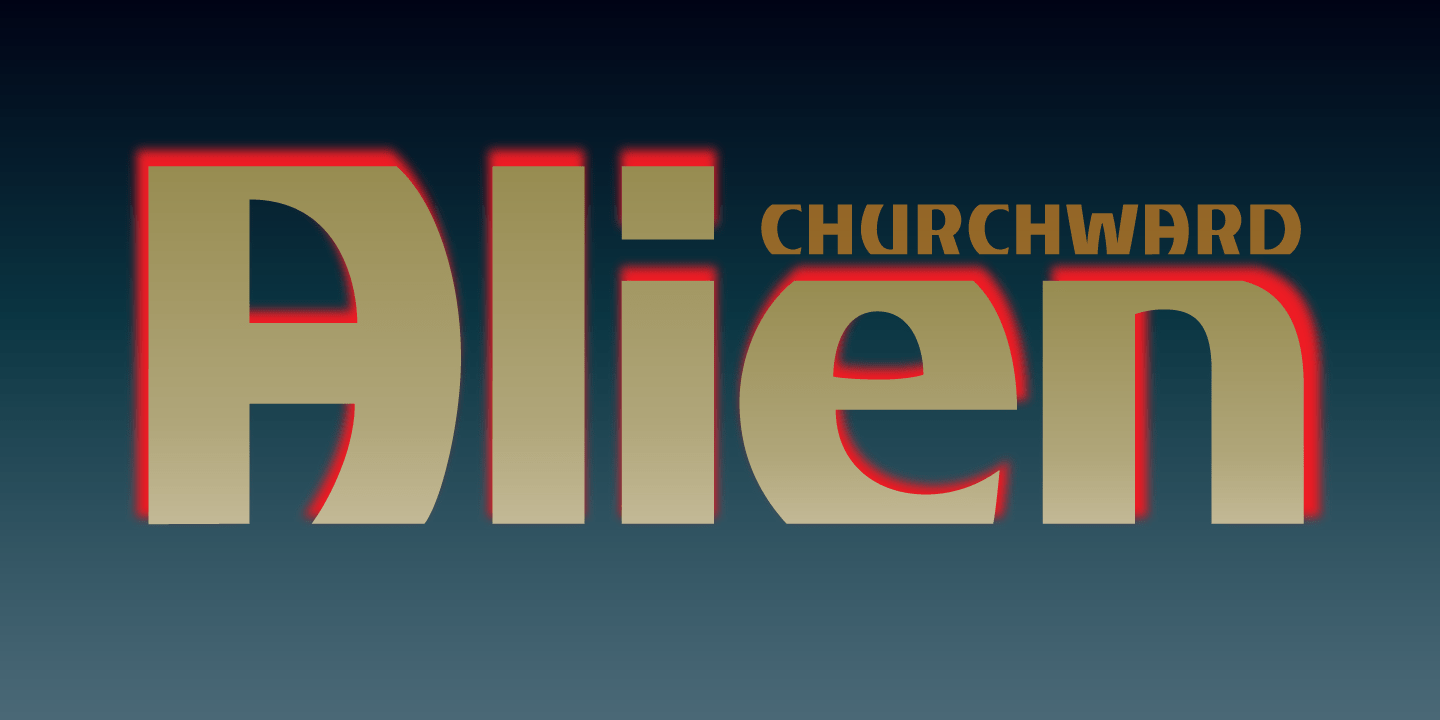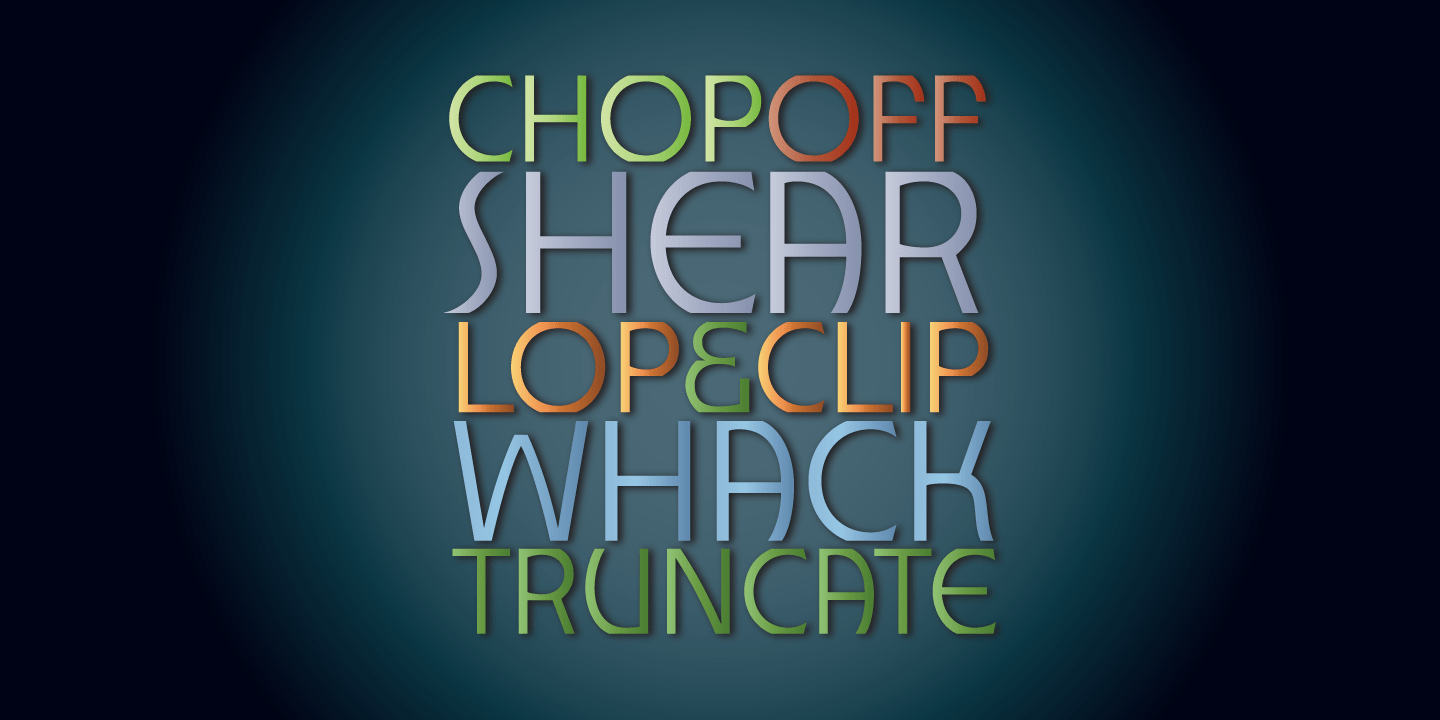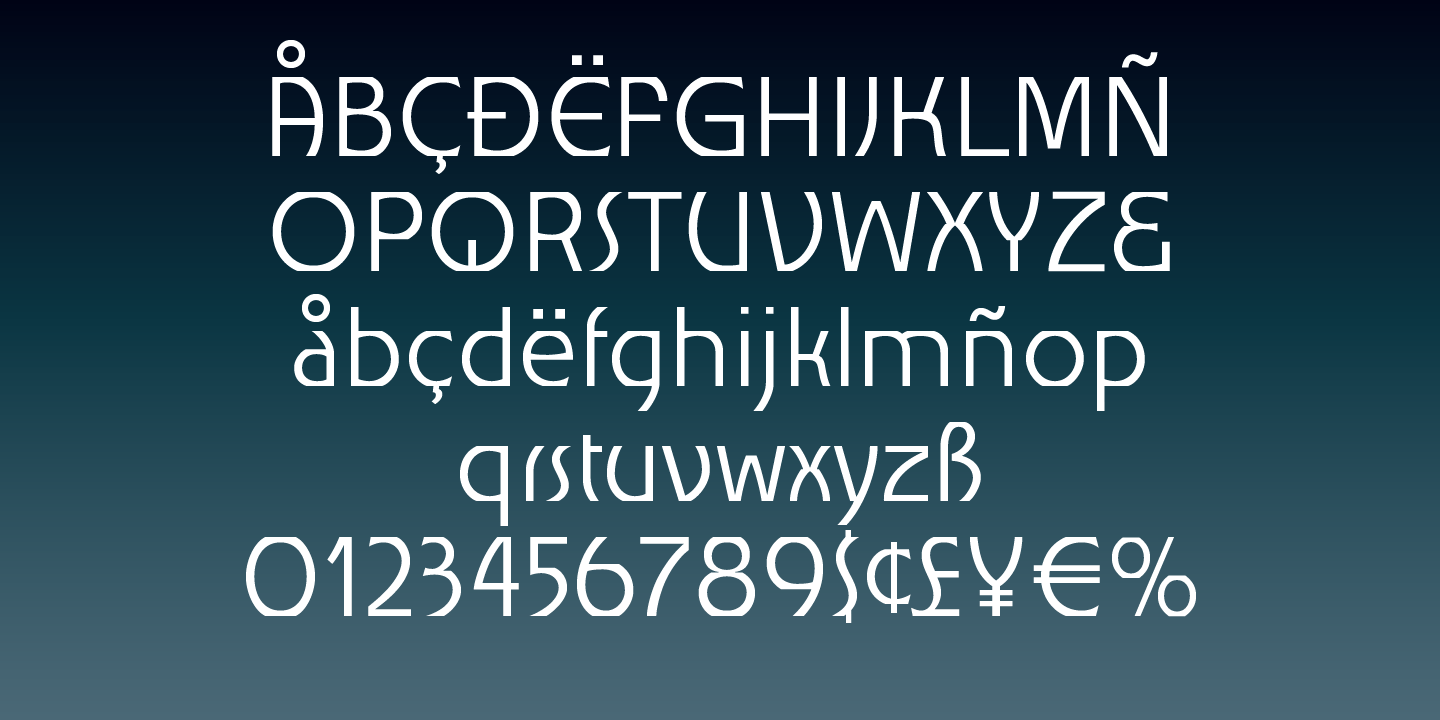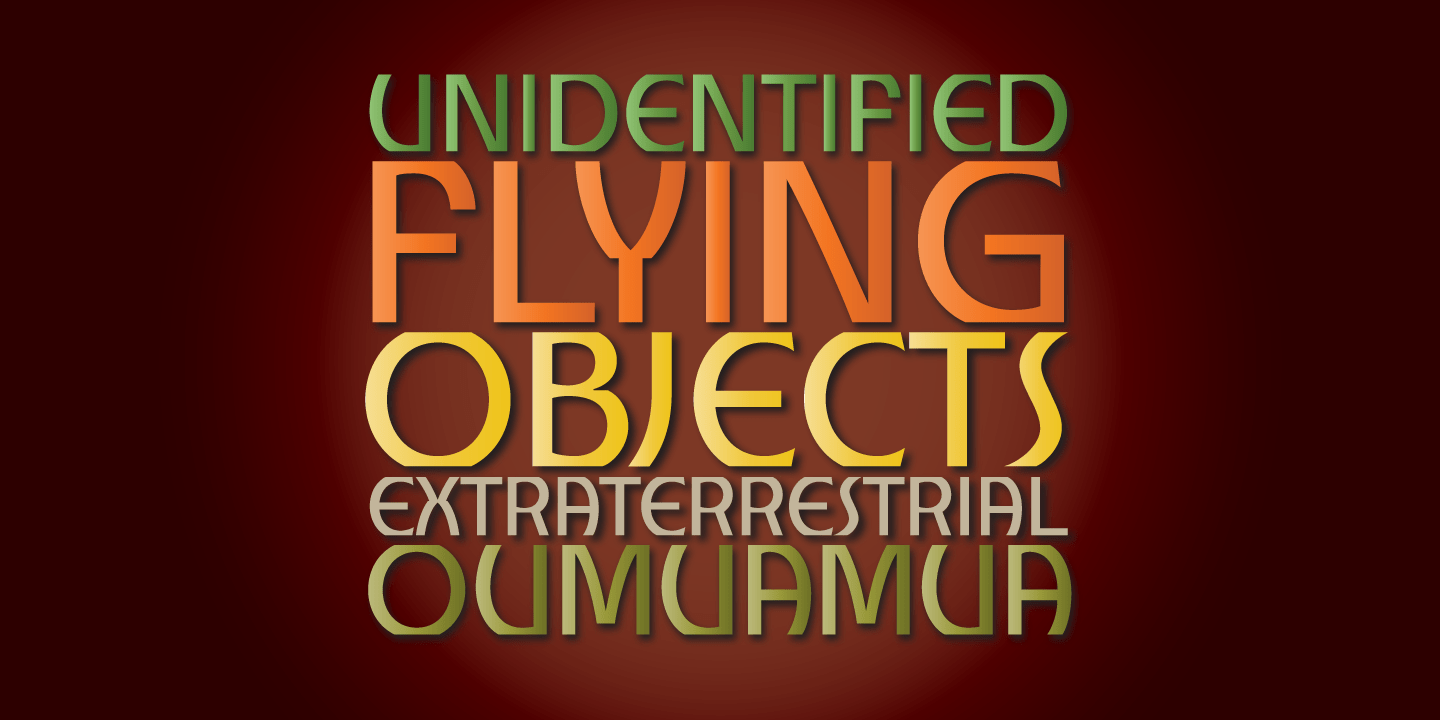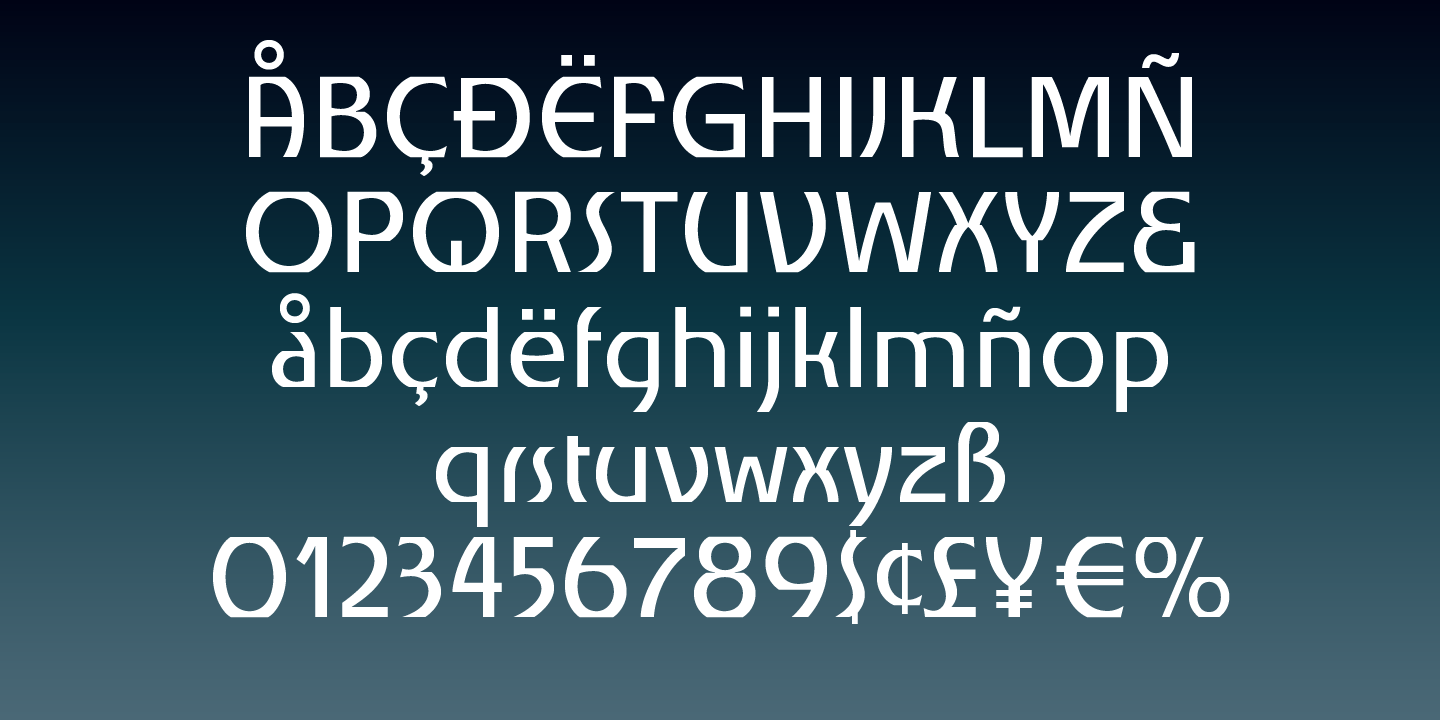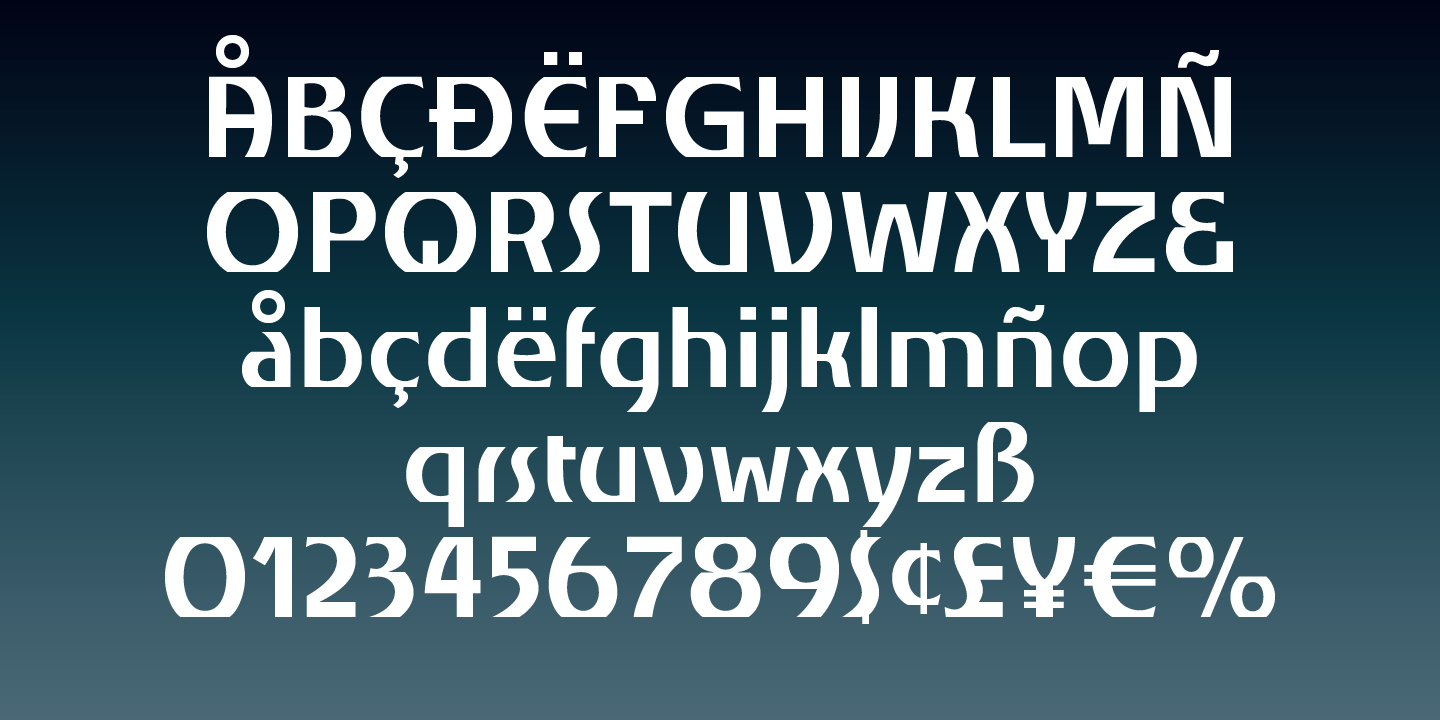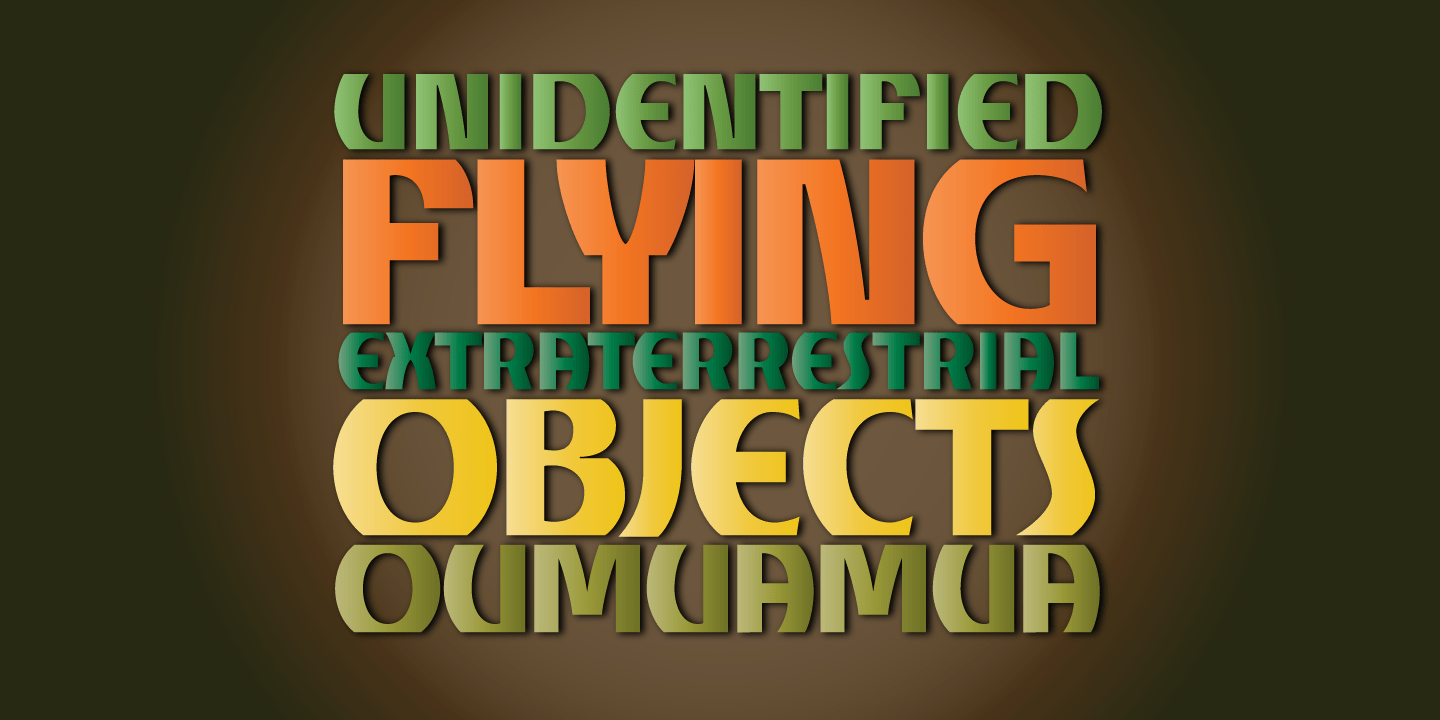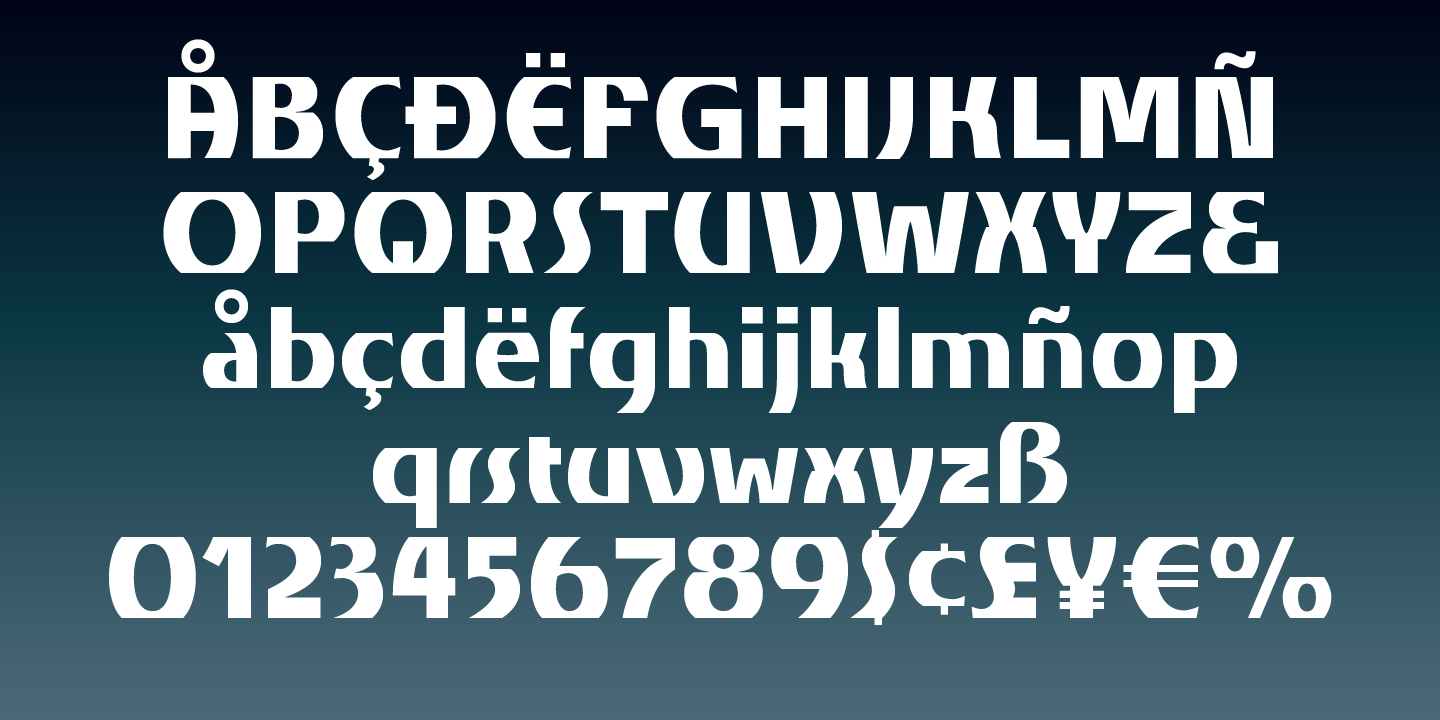
Churchward Alien
Font Family by BluHead Studio
Churchward Alien is a unique typeface designed by Joseph Churchward. The quirky chopped top and bottom motif gives this four weight sans serif family a unique presence suitable for display work, but the lighter weights work equally well for short text runs.